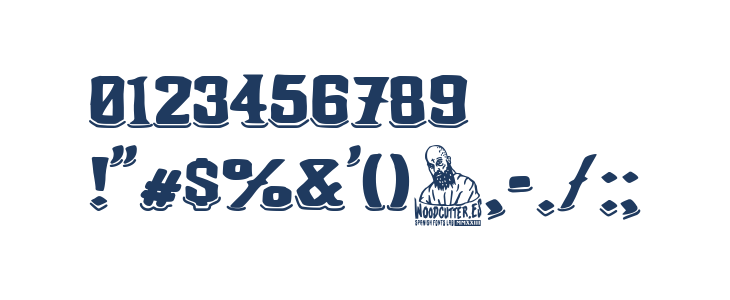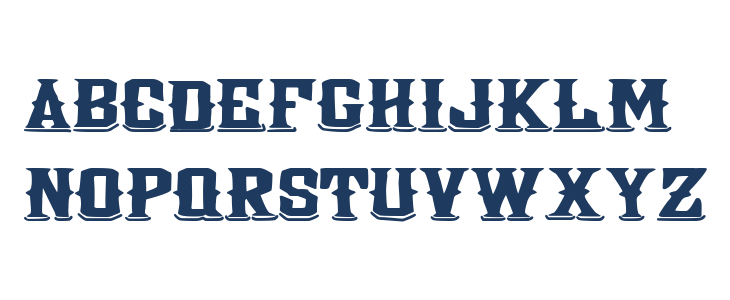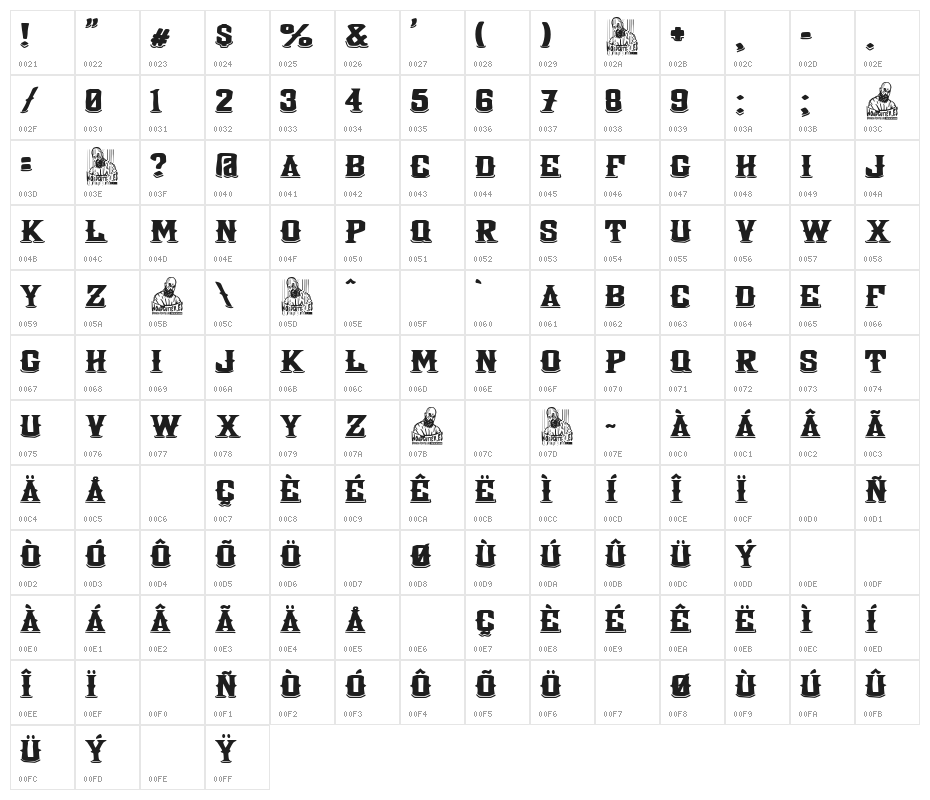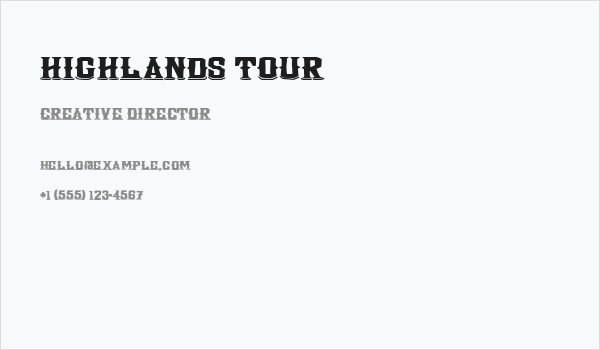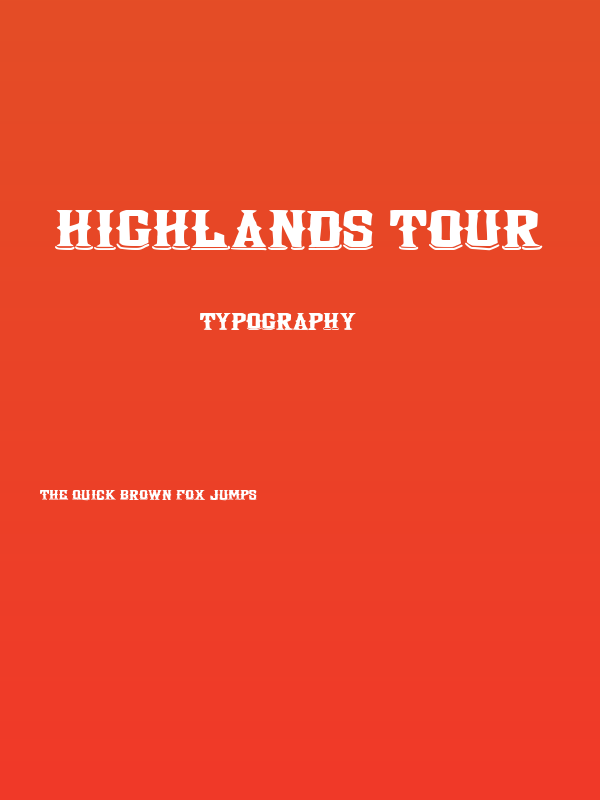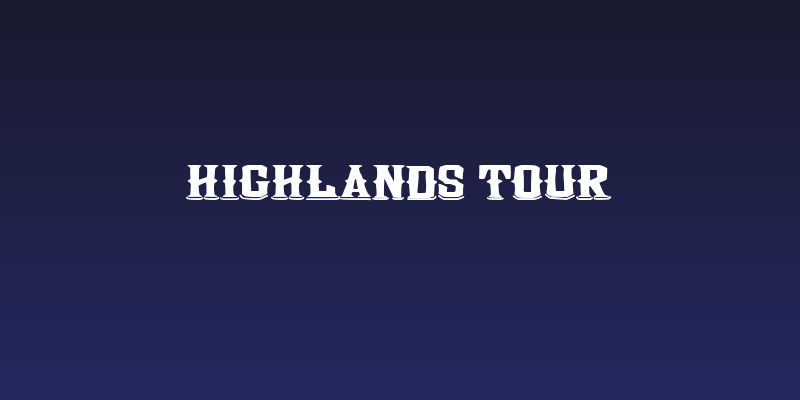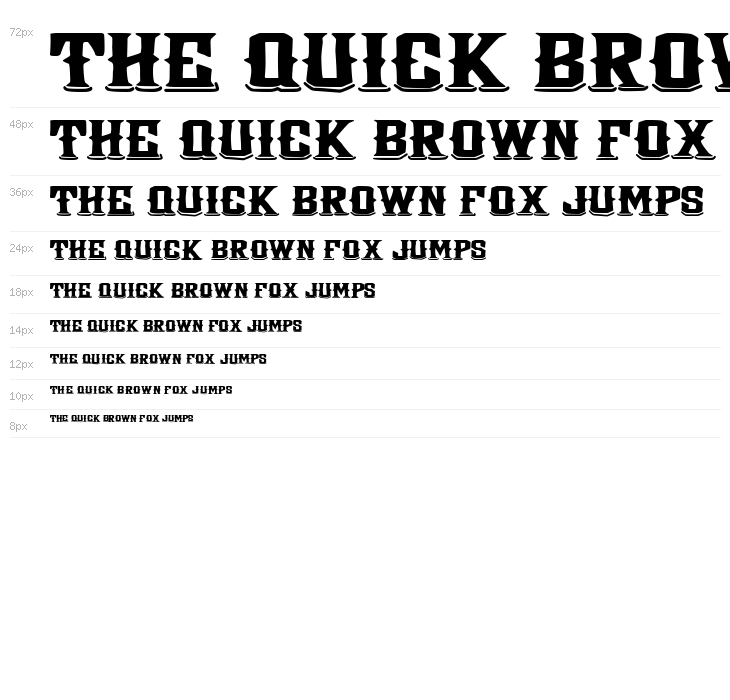
Highlands Tour Font
Highlands Tour Description
A bold, slab serif display font with strong geometric shapes, pronounced serifs, and a heavy drop shadow effect that gives a three-dimensional appearance. The characters are wide, blocky, and feature consistent stroke thickness, making them highly legible and impactful.
| Overall Style | Decorative, Vintage, Western |
| Use Case | Headlines, Logos, Posters, Signage |
| Proposed Projects | Posters, signage, event flyers, branding for sports teams, Western-themed designs, and logos. |